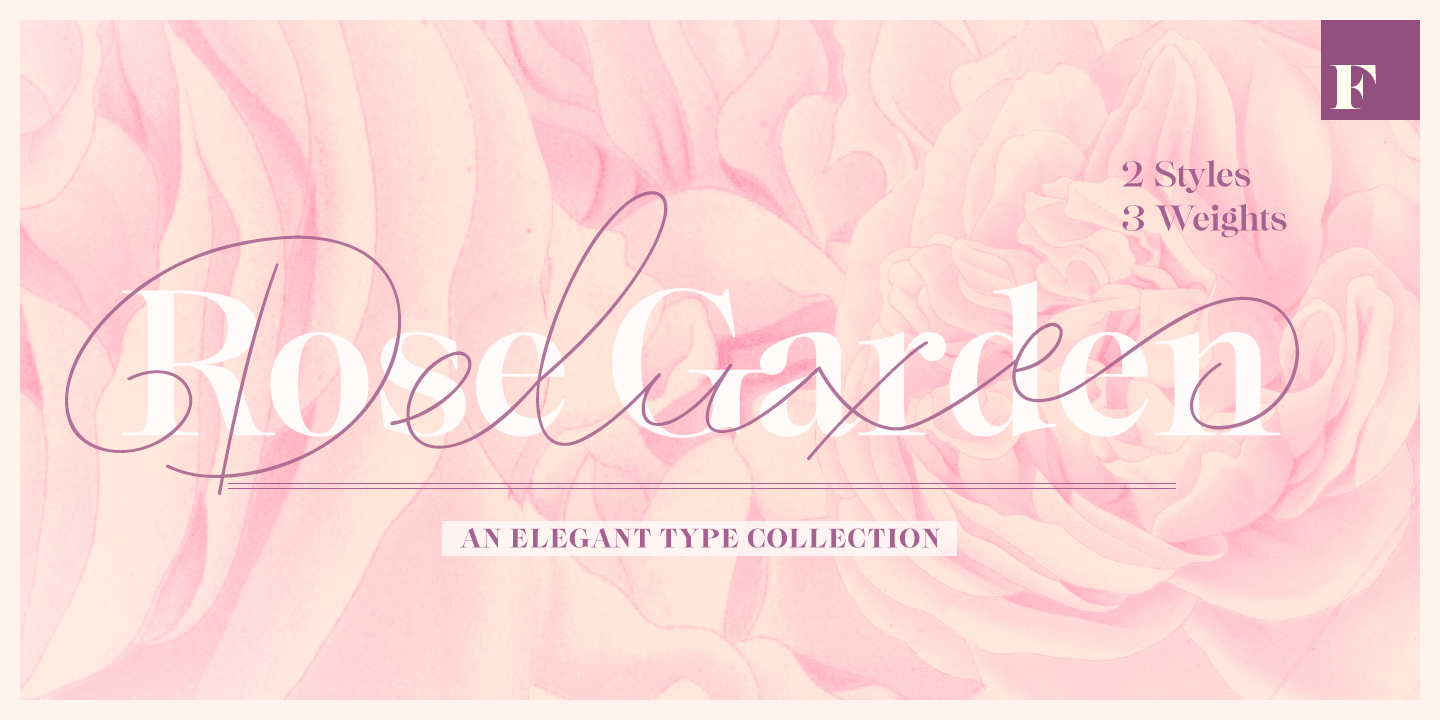
The Rose Garden Deluxe Font is incredibly versatile, making it an exquisite choice for a wide array of design projects that aim to evoke a sense of timeless romance, delicate beauty, and classic elegance. Imagine it gracing luxurious wedding invitations, adding a sophisticated, handcrafted touch to high-end branding for floral businesses or bespoke products, or bringing a beautiful, flowing feel to editorial layouts for bridal and lifestyle magazines. It's also fantastic for crafting unique greeting cards, enhancing product packaging for artisanal goods, and designing captivating social media graphics that stand out with their bespoke appeal. Its inherent grace and expressive flow make it perfect for any project striving to communicate heartfelt messages, personalized style, and an undeniable sense of refined beauty.
What makes Rose Garden Deluxe Font so exciting is its unique ability to combine the natural elegance of authentic handwriting or a refined serif with charming floral-inspired details or delicate flourishes. It often features smooth, connected letterforms, subtle swashes, and a consistent rhythm that gives it an immediate sense of authenticity and bespoke craftsmanship, reminiscent of a blooming garden. This font doesn't just display text; it adorns it, making your message feel intimate, warm, and truly special. Its balance of aesthetic appeal and functional clarity ensures that your designs are not only beautiful but also effectively convey their intended sentiment. It's a typeface that brings an atmosphere of romantic artistry and personal touch to your typography, guaranteeing your projects leave a graceful and memorable impression.
The Rose Garden Deluxe Font family typically includes a range of stylistic alternatives and features to provide extensive creative flexibility. While specific options can differ, you can generally expect to find alternatives like various ligatures, stylistic sets, and elegant swashes that enhance its natural, often flowing appearance. These features allow you to customize the flow and connectivity of the script or the decorative elements of the serif, ensuring a unique and beautifully crafted design. This comprehensive family support ensures that whether you need a prominent, elegant headline or a subtle, personal accent, Rose Garden Deluxe Font Free Download offers the perfect elements to bring your sophisticated vision to life.